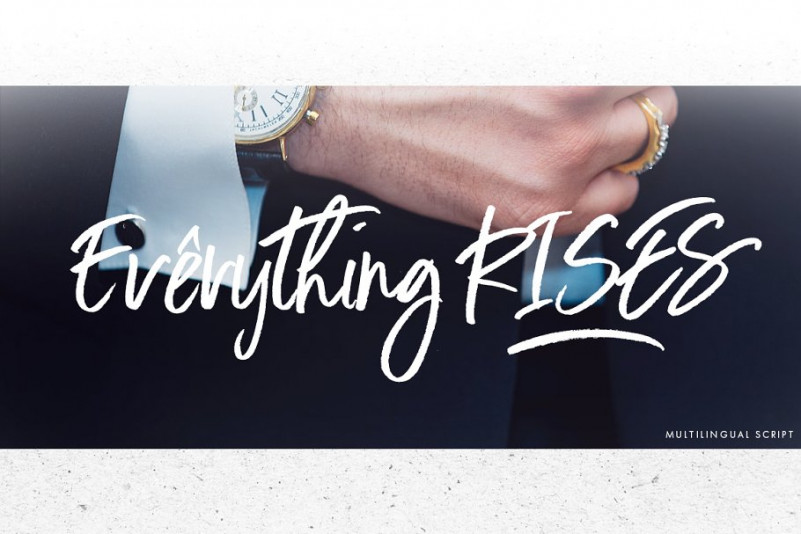
Goride Font
Goride Font is the perfect choice to infuse a contemporary and bold touch into your graphic design projects. With its clean lines and contemporary aesthetic, Goride effortlessly captures attention while maintaining readability across diverse platforms and screen sizes. Ideal for creators seeking a stylish yet functional typeface, Goride embodies a perfect balance of boldness and clarity, making it an exceptional choice for titles, captions, and promotional materials in the dynamic world of digital media.